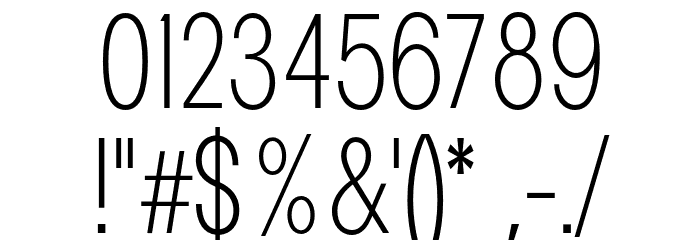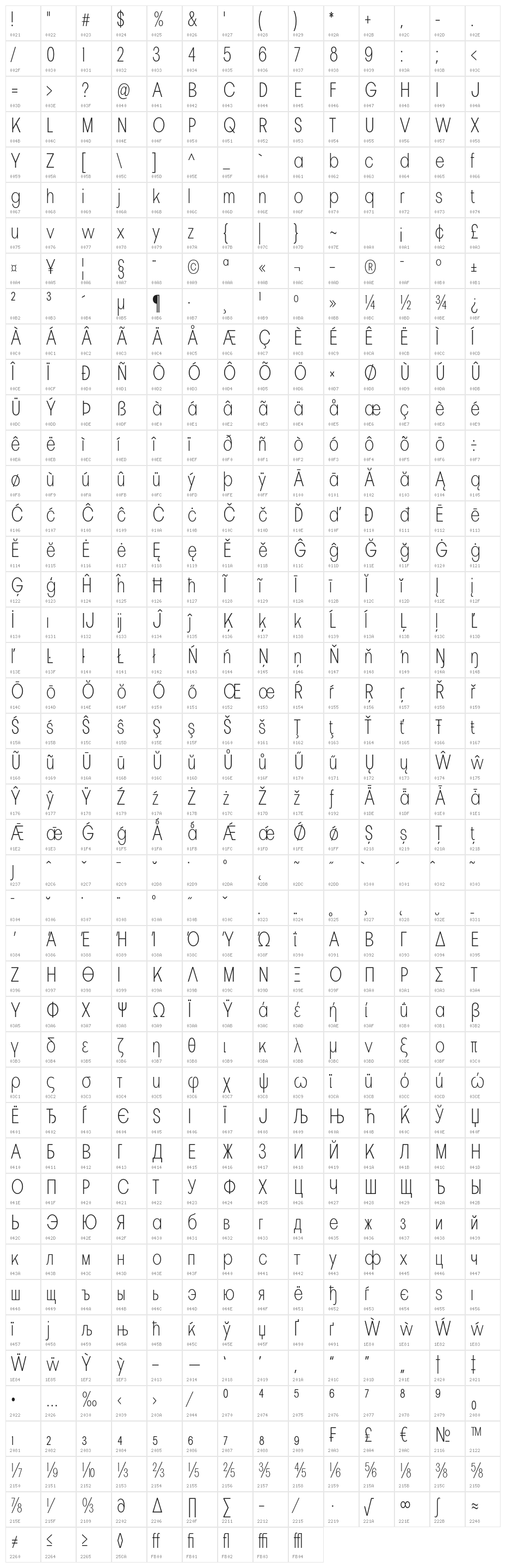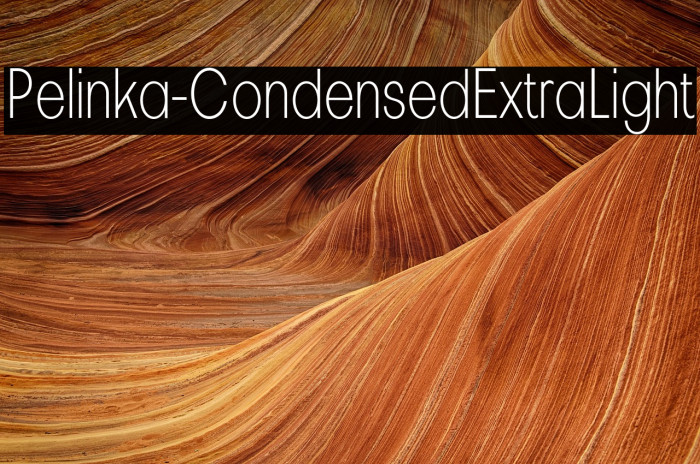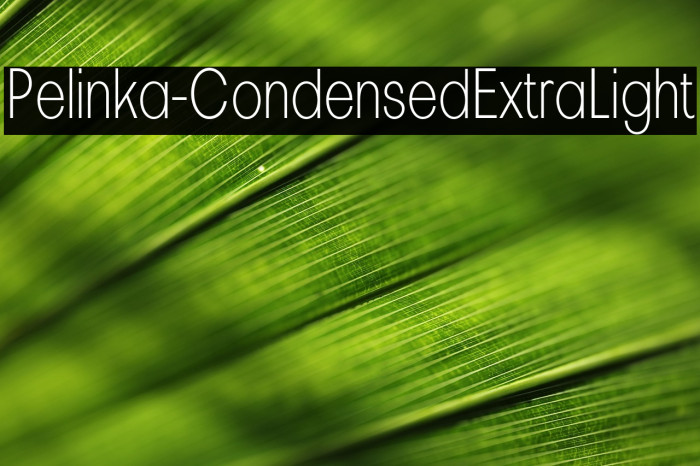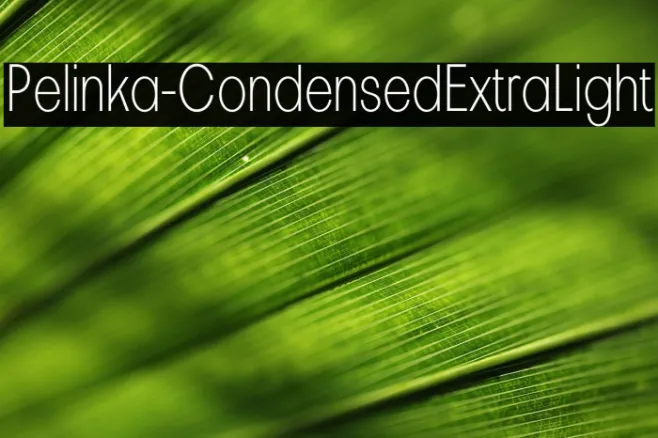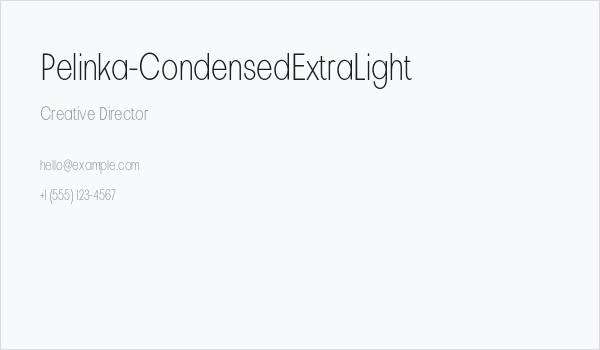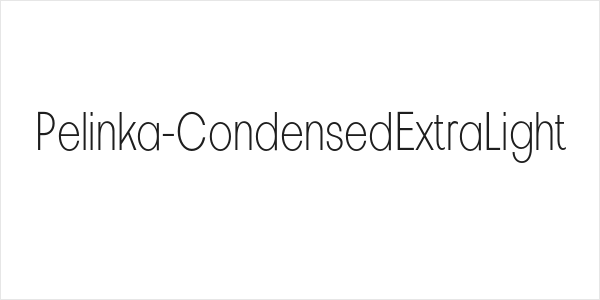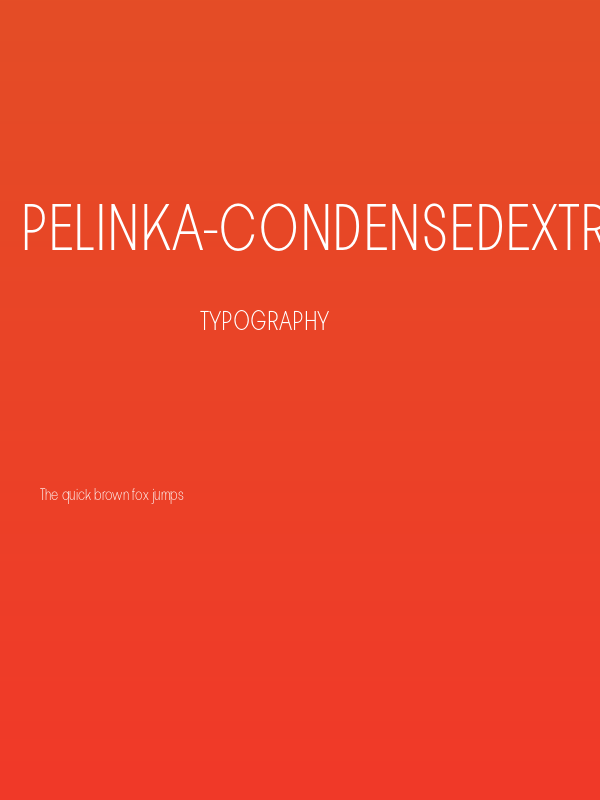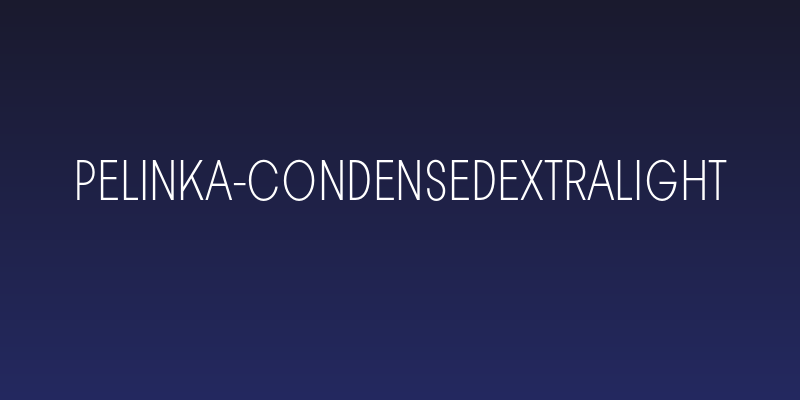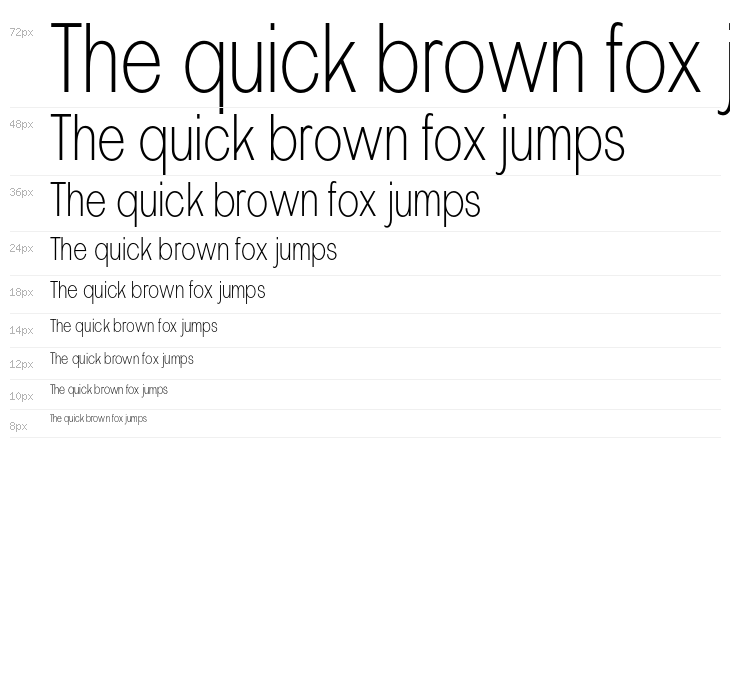
Pelinka-CondensedExtraLight Font
Pelinka-CondensedExtraLight Description
This typeface features a clean and modern aesthetic with a condensed structure, making it ideal for space-saving designs. The extra light weight gives it an airy and elegant appearance, suitable for minimalist projects. The characters are uniformly proportioned, with a consistent stroke width that enhances readability. The font includes a full set of uppercase and lowercase letters, numerals, and a variety of special characters, providing versatility for different design needs. Its geometric shapes and smooth curves contribute to a contemporary look, making it a great choice for modern branding and editorial design.
| Proposed Projects | Ideal for modern branding, editorial design, minimalist posters, and digital interfaces. |